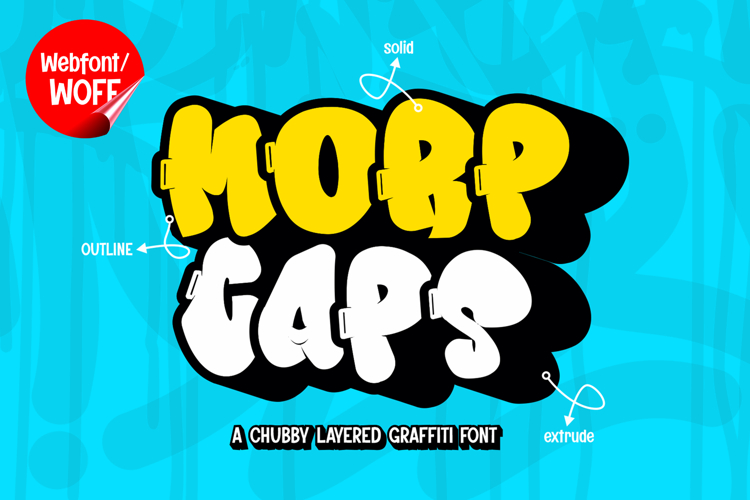
Morp Caps | Chubby 3D Layered Graffiti Webfont for Bold Idea
Morp Caps is a chubby 3D layered graffiti webfont designed to bring bold volume and playful urban energy into modern website design. Featuring thick, rounded letterforms combined with a dimensional layered effect, this font creates a strong and eye-catching visual presence. It is an excellent choice for projects that require a fun yet impactful graffiti style with a modern digital edge.
Morp Caps includes a complete set of uppercase characters designed with chubby graffiti forms and layered 3D construction. The rounded shapes give the font a soft and approachable feel, while the dimensional layering adds depth and structure. These letterforms are ideal for headlines, banners, hero sections, and featured content where strong visual impact is needed. The bold and thick design helps create a clear visual hierarchy.
In addition to letters, the font includes numbers and punctuation, allowing flexible usage across various parts of a website. It works well for promotional content, product highlights, event announcements, and call-to-action sections. Each character maintains a consistent chubby and layered graffiti style, ensuring a cohesive and unified visual identity throughout the layout.
With multilingual support, Morp Caps includes a wide range of accented characters, making it suitable for international websites and global audiences. This allows content to be displayed clearly across different languages while preserving the playful graffiti aesthetic.
The chubby 3D layered graffiti style of Morp Caps makes it especially suitable for urban-themed websites, streetwear brands, kids-related designs, gaming platforms, and creative portfolios. Its rounded and dimensional design adds personality and depth, helping websites stand out in competitive digital spaces. The playful form also makes it appealing for projects that want to feel bold yet friendly.
Despite its bold and decorative appearance, Morp Caps is designed with readability in mind. The spacing and structure of each character are carefully balanced to ensure clarity, particularly in display sizes. This makes it effective for impactful headings and short content elements where both style and usability are important.
Morp Caps is a webfont that combines graffiti aesthetics with chubby forms and layered depth. Its bold shapes, dimensional effect, and urban influence create a distinctive typographic presence that enhances website design. For projects that require a playful, bold, and visually engaging graffiti font, Morp Caps offers a powerful and creative solution.